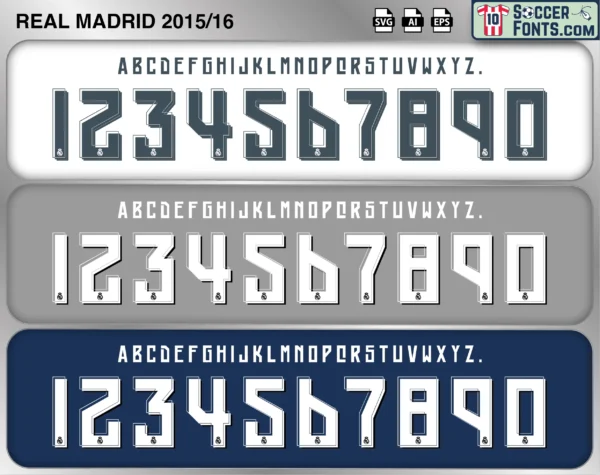
Real Madrid 2015-16 Font
The Real Madrid 2015-16 font is an editable soccer jersey lettering design in vector format inspired by the Real Madrid kit style used during the 2015-16 football season. This football font artwork is prepared for football shirt recreations, custom jersey projects, football kit mockups and sports graphic design workflows.